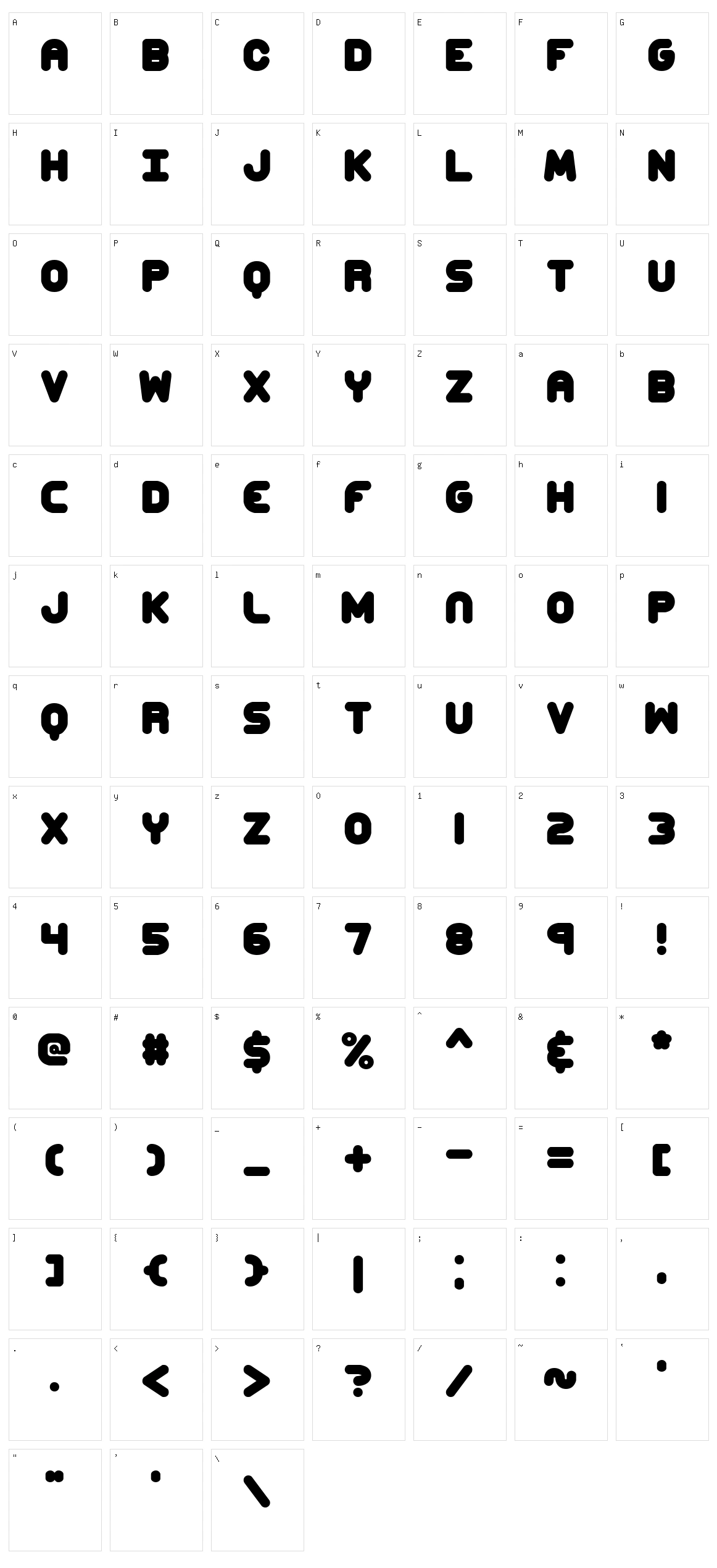
Corpulent Caps
Designed by: ?nigma
Corpulent Caps Created by Brian Kent
-Corpulent Caps
-Corpulent Caps Shadow
This font contains all caps. The characters 'C E F I L M N W' have
different characters for the lower and upper case letters.
Corpulent Caps Character Set